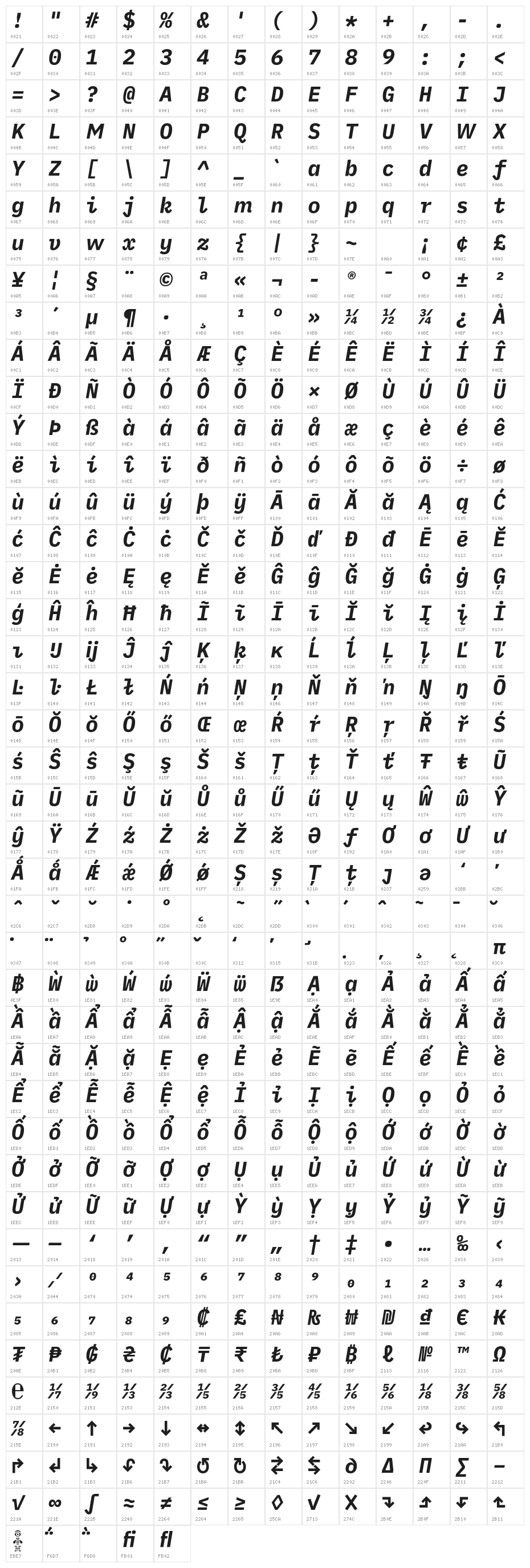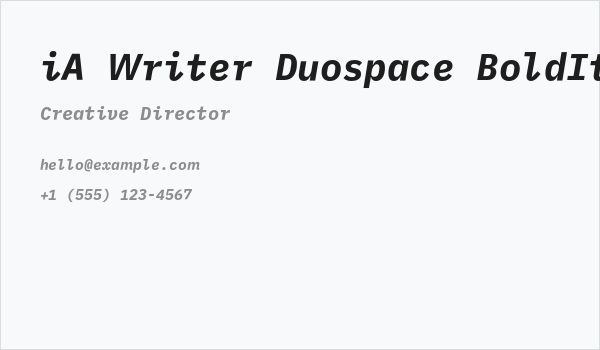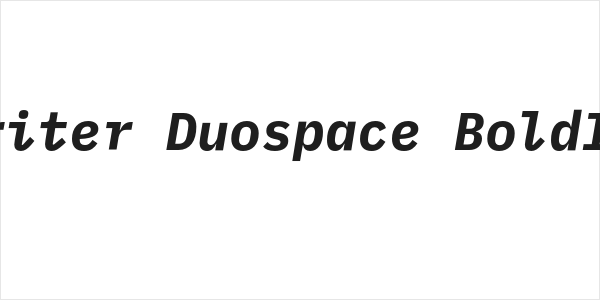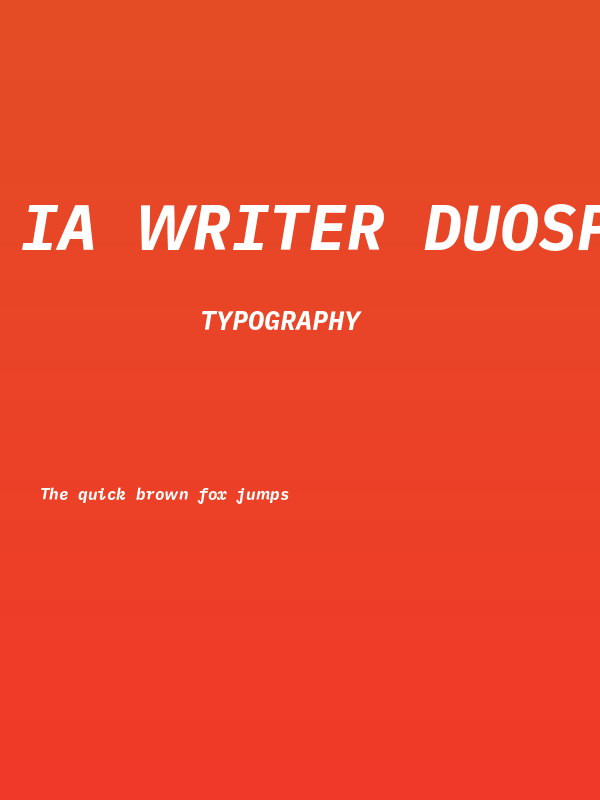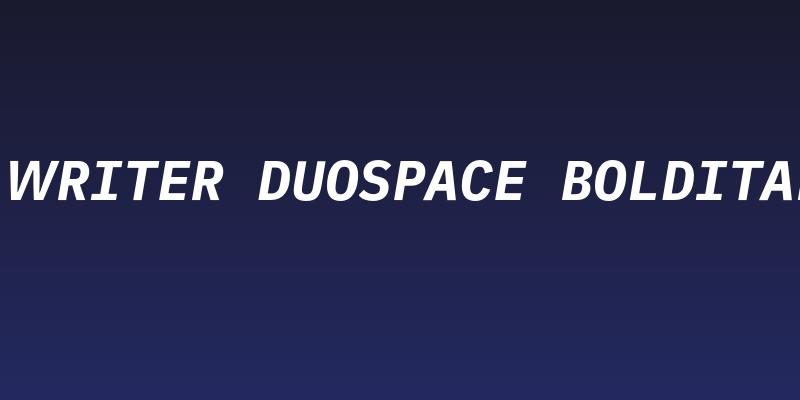
iA Writer Duospace BoldItalic Font
iA Writer Duospace BoldItalic Description
This font features a clean, modern design with a slight slant, giving it an italicized appearance. The characters are bold, with consistent stroke thickness, providing a strong visual impact. The sans-serif style ensures readability, while the italic angle adds a touch of elegance and dynamism. The numbers and special characters are well-defined, maintaining the overall aesthetic. The spacing between characters is normal, allowing for clear legibility without feeling cramped. This font's bold and italic nature makes it suitable for various design applications where emphasis and style are needed.